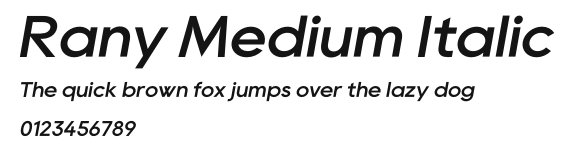
Rany Medium Italic Preview
• Font Name: Rany Medium Italic
• Full Font Name: Rany Medium Italic
• Designer: Ran Mingwei
About Rany Medium Italic.otf
Rany Medium Italic.otf is a modern, elegant sans-serif font designed for ultimate readability and visual harmony. Perfect for branding, headlines, web design, and print materials.